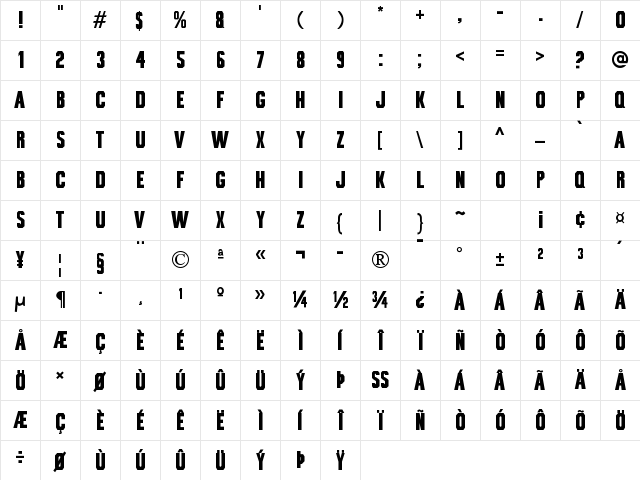
Bou Collegiate Regular
Design Context for Bou Collegiate
Bou Collegiate is a composed and adaptable typeface that performs quietly and consistently across a wide range of design contexts.
Pro Tip: Use Bou Collegiate in both headline and body roles to test its range before committing to a single application.